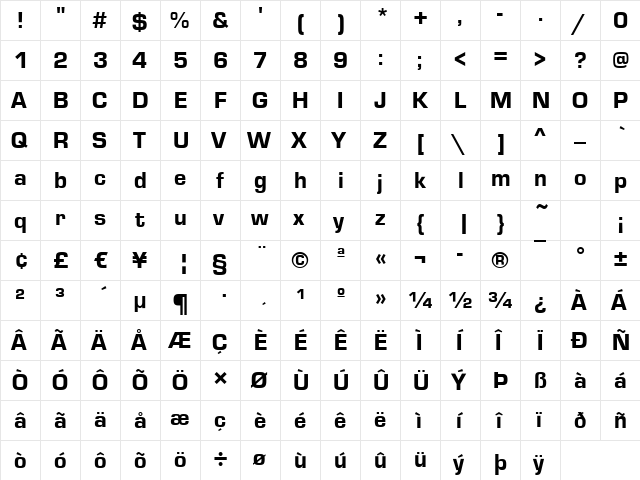
MicroSquare-Heavy Regular
Design Context for MicroSquare-Heavy Typeface
MicroSquare-Heavy is a composed and adaptable typeface that performs quietly and consistently across a wide range of design contexts.
Pro Tip: Pair MicroSquare-Heavy with a font of contrasting weight or personality to build a more expressive typographic hierarchy.